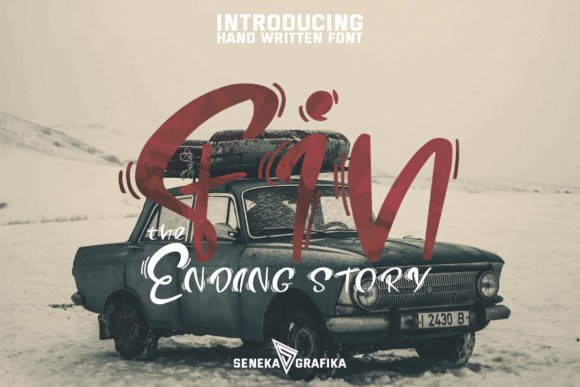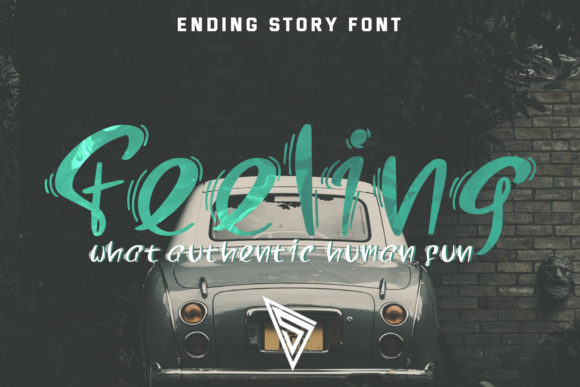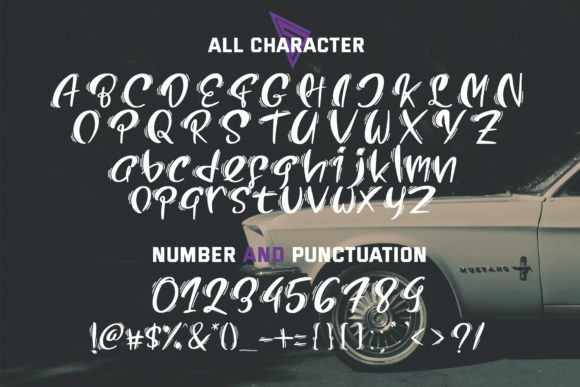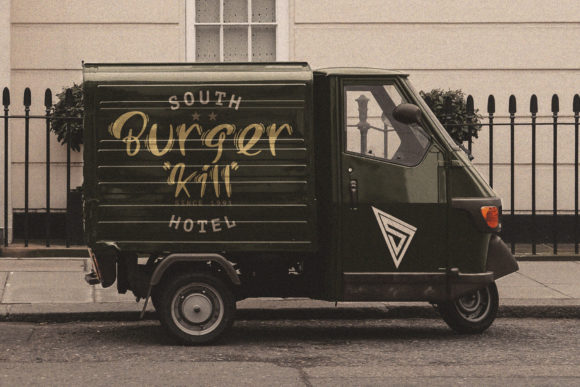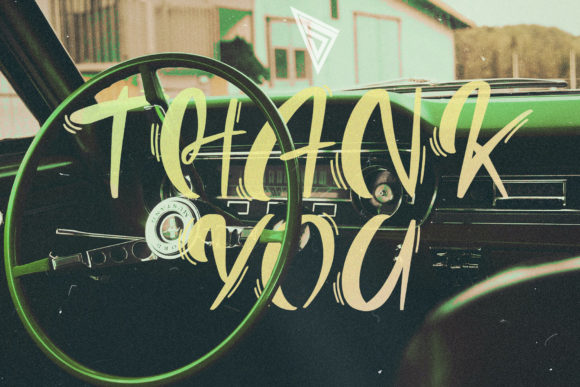
Unleashing Your Creativity with Ending Story Font
There’s something magical about the moment when a design idea finally clicks – the rush of excitement, the spark of inspiration, and the urge to bring it to life. For designers, this moment is often the starting point of a creative journey that can lead to breathtaking results. And what better way to express your unique vision than with the perfect font?
Meet Ending Story Font, a cool, casual, and urban styled handwritten font designed to make your designs stand out. Whether you’re creating a poster, flyer, or print, this font is sure to add a touch of personality and style to your work. With its endless possibilities, Ending Story Font is a valuable tool for designers looking to push the boundaries of their creativity.
Ending Story Font Key Features
- Font Family: Ending Story is a unique, hand-drawn font designed for various applications, including digital and print media.
- Size: The font contains 6 weights (Thin, Light, Regular, Medium, Bold, and Black) and 4 styles (Italic, Oblique, Condensed, and Extended), providing a wide range of design options.
- Unique Characteristics: The Ending Story font features a distinctive, hand-drawn style with intricate details and subtle flourishes, giving it a personal and emotive feel.
- Character Set: The font includes a comprehensive set of characters, including Latin, Cyrillic, and Greek alphabets, as well as punctuation and special characters, making it suitable for use in multiple languages.
Ending Story Font Review
Overall, I’m impressed with the Ending Story Font. It’s a beautiful, elegant script font that’s perfect for adding a touch of sophistication to any design project. ✨ The flowing lines and cursive style make it ideal for titles, headings, and quotes.
- Unique character set: The font has a unique character set that adds to its charm. It’s perfect for creating a distinctive look that sets your design apart.
- Customizable: The font can be customized to fit your design needs, whether you want to use it for digital or print projects.
- High-resolution: The font is available in high-resolution, making it perfect for printing and large-scale designs.
However, there are a few limitations to consider: ⚠️ The font is not suitable for body text, as it can be difficult to read at smaller font sizes. Additionally, the font may not be compatible with all operating systems or software.
Overall, I’d give the Ending Story Font 4 out of 5 stars. It’s a beautiful, unique font that’s perfect for adding a touch of elegance to your designs. While it has some limitations, it’s definitely worth considering for your next project.
The Ending Story Font is ideal for:
- Creating dramatic and emotive effects in designs.
- Adding a touch of elegance and sophistication to documents.
- Creating unique and eye-catching titles and headings.
Comparison to Ending Story Font: While both fonts have a classic, elegant feel, Playfair Display is more ornate and luxurious, making it a better choice for high-end designs. Ending Story Font, on the other hand, has a more subtle, vintage feel.
Q: Can I customize the Ending Story Font for my specific project needs?
Yes, you can customize the Ending Story Font to suit your project requirements. The font includes a wide range of OpenType features, such as ligatures, swashes, and contextual alternates, which can be accessed in most design applications. Additionally, you can also use font editing software, such as FontLab or Glyphs, to create custom variations of the font.